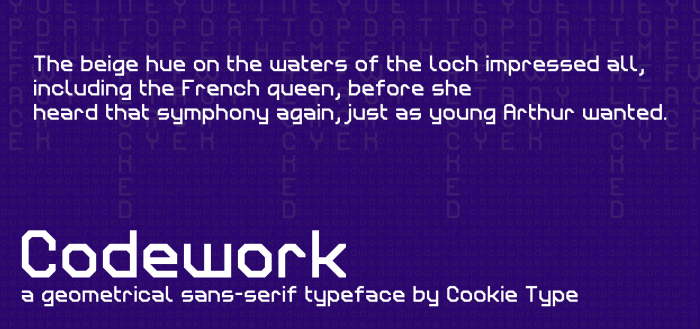
Not a bad return. The font looks fashionable, although I would refer it to techno rather than geometric. Special thanks for the Cyrillic (despite the need to purchase).
The idea of ​​a back tilt is interesting, but it does not work in letters q, b, g, л.
It is also worth cuting off the upper right side of я and g.
You use handwritten forms of Cyrillic letters б, д and и(й), so it is worth trying to make handwritten forms of в, з, г, or vice versa.
The shape of the bottom м repeats the shape of the handwritten т(m), you need to redo it. High crossbar K needs to be repeated in Ж.
Ф, Д, ц too narrow, maybe it touches π and Ψ.
Maybe you still need to look for forms M and E, W.
A thousand thanks for your advice. It's very important because I'm trying to deepen my knowledge of Cyrillic. Though I see what you don't like in q, g, д, I tend not to modify them because that right angle is the first thing I constructed in this typeface :)
Just a few changes:
> K crossbar moved one brick lower.
> Lowercase и (and derivatives), д, б etc. changed.
> Ф, Д, ц, π, Ψ are now wider.
> м now matches the uppercase M.